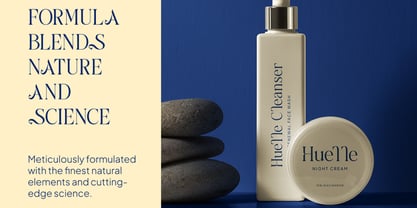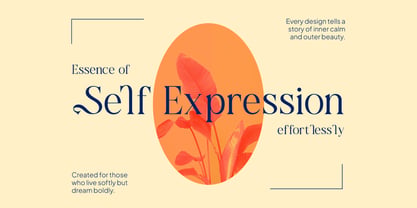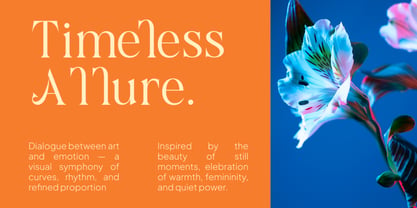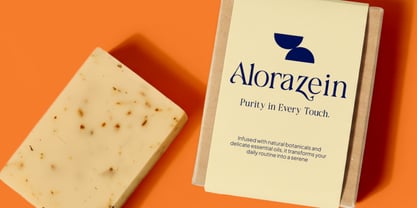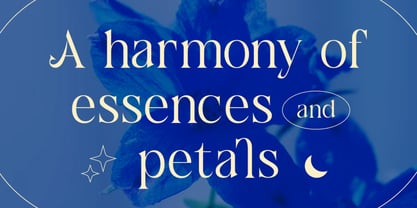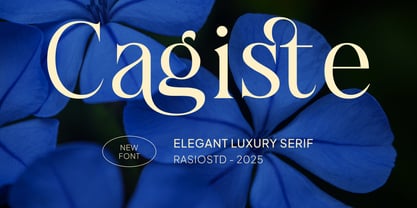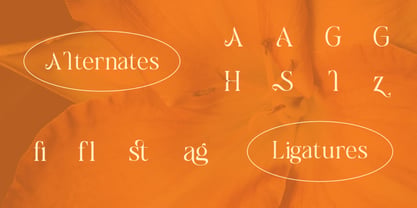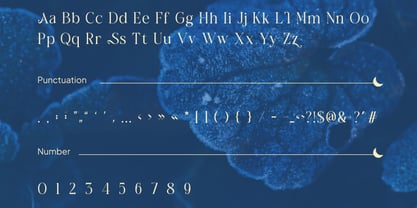
Cagiste
The Cagiste Font Family was designed by Fajar Indra and published by Rasio Studio. Cagiste contains 1 styles. More about this family
Cagiste is an elegant luxury serif display typeface crafted with refined proportions, high-contrast strokes, and graceful curves that express timeless sophistication. The design blends classic serif tradition with modern editorial sharpness, featuring delicate terminals, smooth ligatures, and balanced spacing for a polished typographic flow. Relevance and Use Cases is perfect for luxury brand identities, fashion and beauty packaging, magazine editorials, wedding stationery, perfume labels, cosmetic branding, boutique logos, social media campaigns, and refined layouts that require a soft yet sophisticated typographic presence.